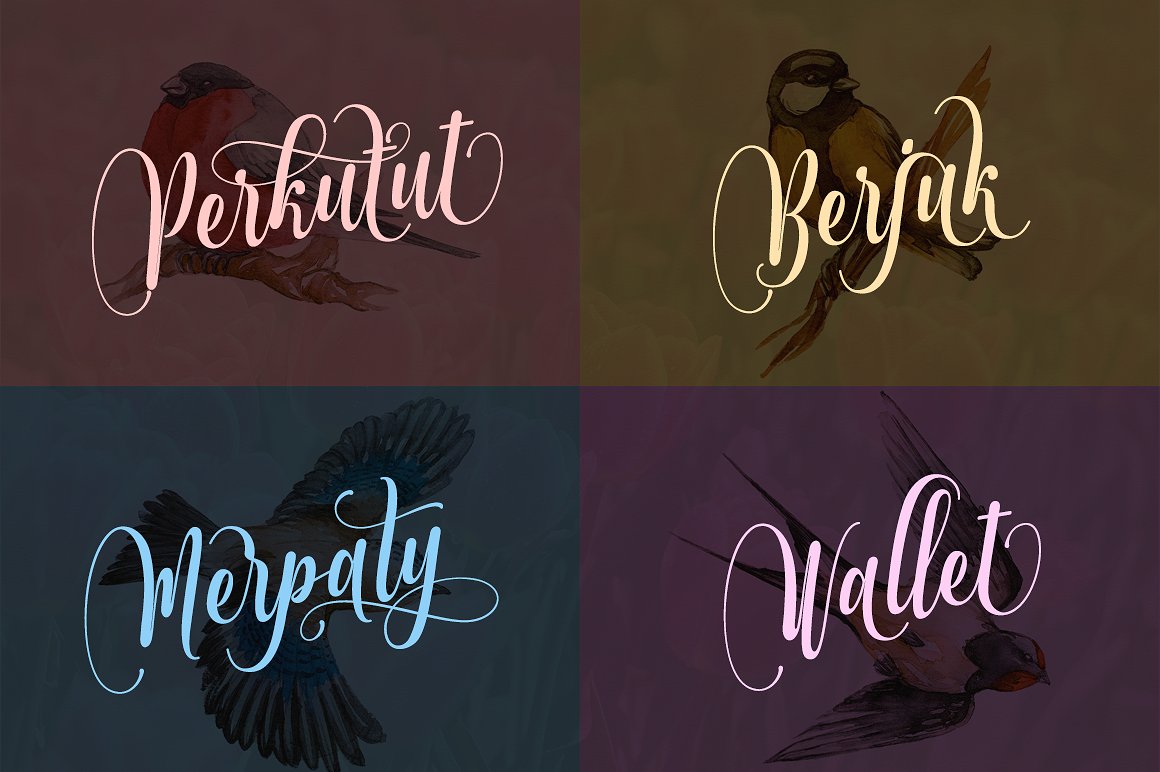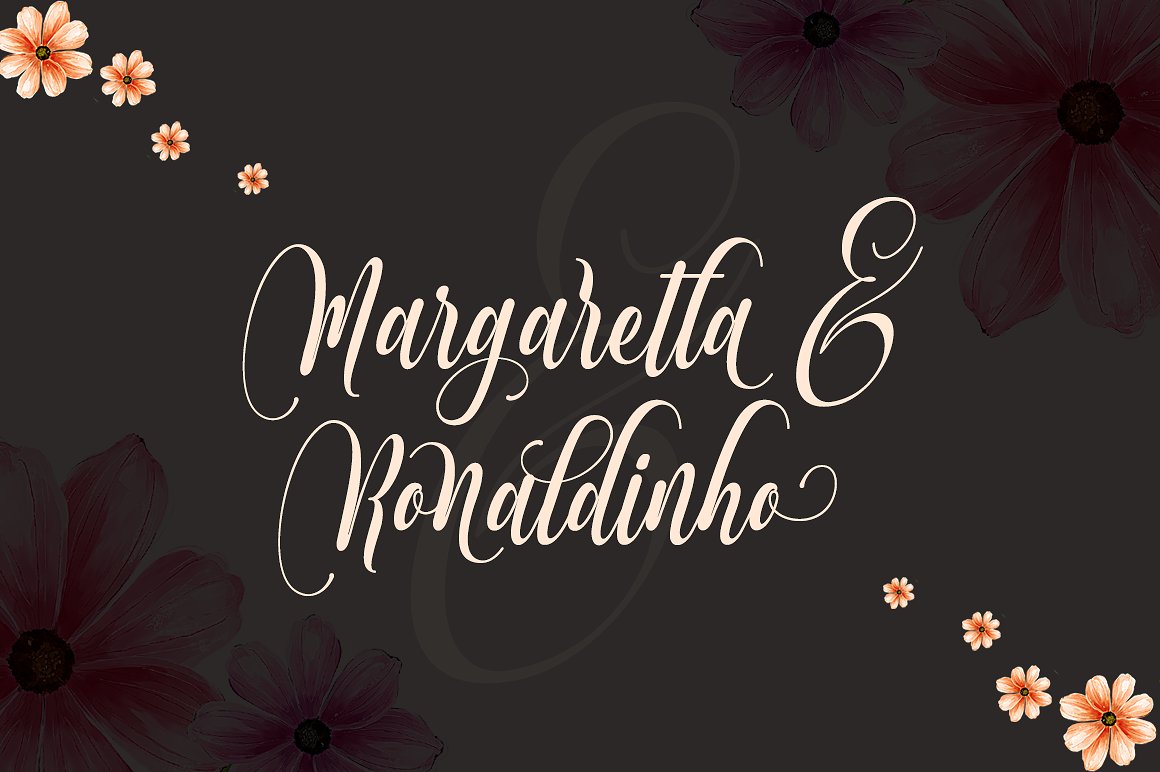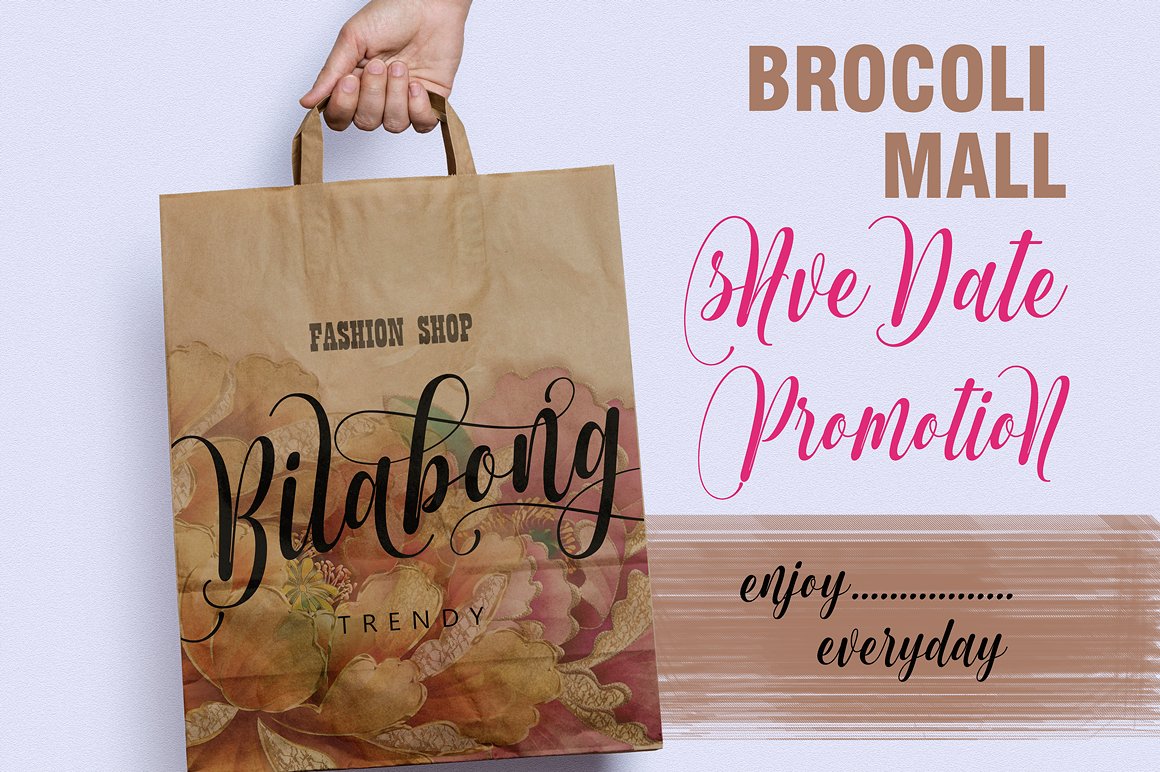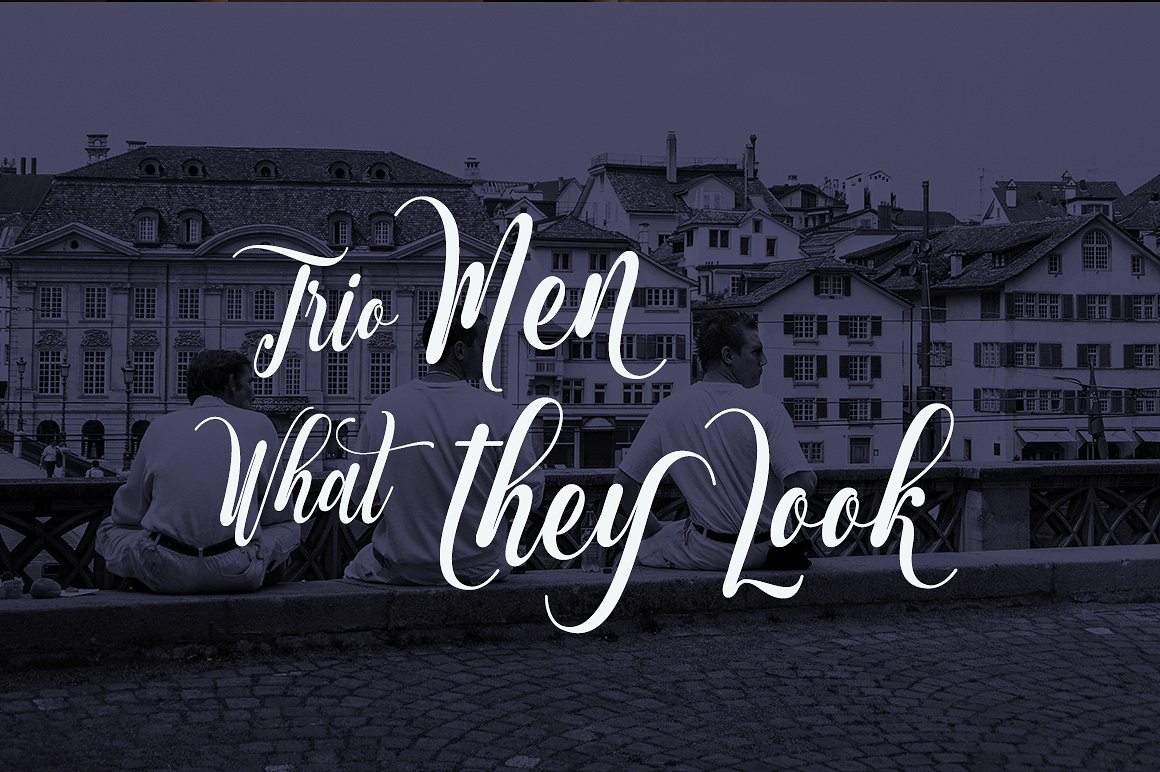
Muthya Script Font
Say hello to Muthya, a wet inky calligraphy script font that has a traditional vibe with its imperfect handwriting. Muthya is a font that made the hand by having the character up and down like a dancer. Muthya has a very unique style of calligraphy, it is very suitable for use in the work of modern design.